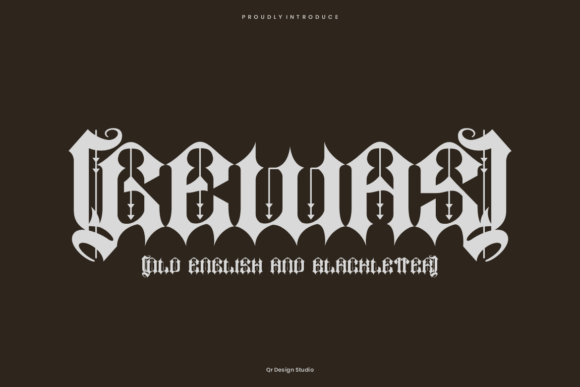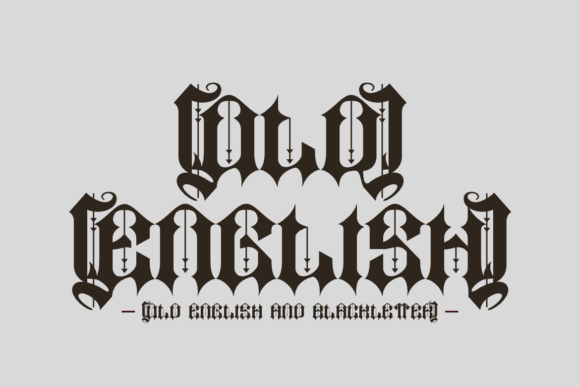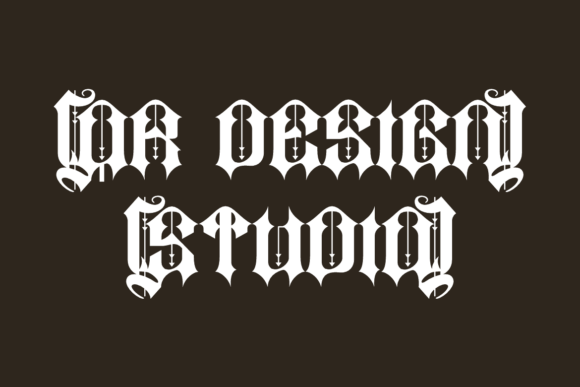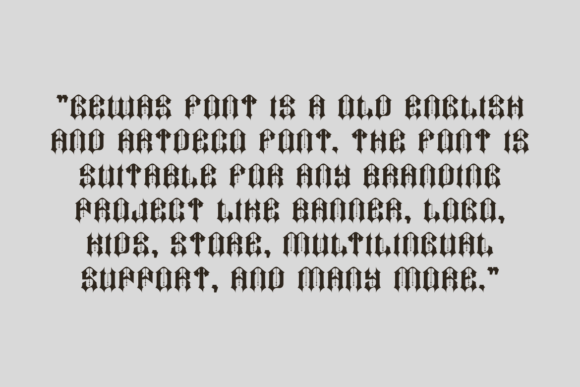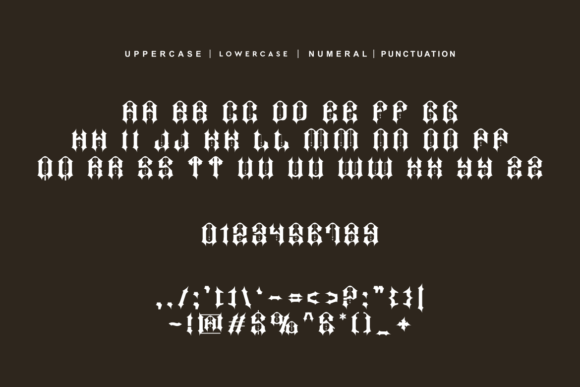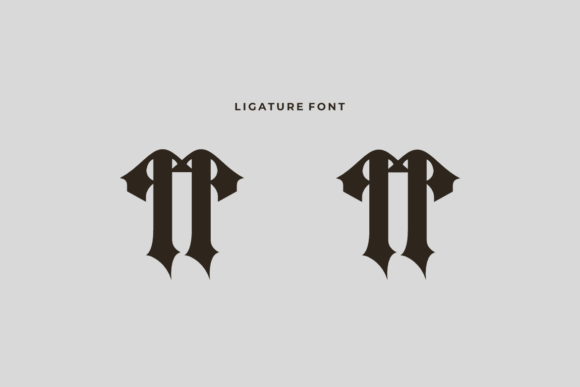
Introducing Gewas Font: The Bold and Authentic Display Font for Your Branding Needs
In the world of typography, a font can make or break a brand’s identity. A well-designed font can elevate a brand’s visual appeal, convey its message, and leave a lasting impression on its audience. If you’re a designer, craftsperson, or brand owner looking for a bold and authentic display font, look no further than Gewas Font. In this article, we’ll explore the features, benefits, and uses of Gewas Font, and why it’s an excellent choice for your branding projects.
What is Gewas Font?
Key Features of Gewas Font
- Bold and Authentic Design: Gewas Font boasts a bold and authentic design that grabs attention and conveys confidence.
- Versatility: The font is suitable for a wide range of branding projects, including logos, sports, and more.
- Wide Range of Contexts: Gewas Font is outstanding in various contexts, from digital platforms to print materials.
- Easy to Read: Despite its bold design, Gewas Font is easy to read, making it perfect for headlines, titles, and short texts.
Benefits of Using Gewas Font
Using Gewas Font in your branding projects offers several benefits, including:
- Unique Identity: Gewas Font helps create a unique identity for your brand, setting it apart from competitors.
- Professional Look: The font’s bold and authentic design gives your brand a professional look, conveying expertise and confidence.
- Flexibility: Gewas Font is versatile and can be used across various platforms, from digital media to print materials.
- Time-Saving: With Gewas Font, you can save time and effort in designing a font from scratch or searching for the perfect font.
Use Cases for Gewas Font
Gewas Font is suitable for various branding projects, including:
- Logo Design: Use Gewas Font to create a bold and memorable logo for your brand.
- Sports Branding: The font’s energetic and dynamic design makes it perfect for sports-related branding projects.
- Advertising: Gewas Font is ideal for creating attention-grabbing headlines and titles for advertisements.
- Packaging Design: Use the font to create eye-catching packaging designs that stand out on store shelves.